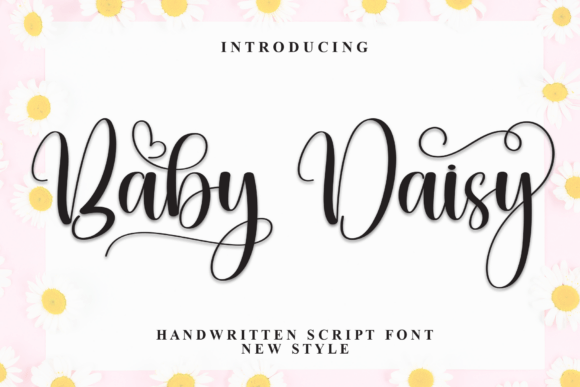
Who hasn’t experienced that moment of pure creative bliss when a font catches their eye, and they can envision a whole design unfolding before them? It’s a moment of pure magic, and for designers, it’s a treasure to behold. For me, that moment came when I stumbled upon the Baby Daisy Font. This charming handwritten font is a masterclass in elegance and whimsy, featuring delicate heart tails that add a playful touch to any design.
The Baby Daisy Font is perfect for adding a sweet touch to invitations, cards, and other creative projects. Its soft curves and heart details make it stand out, bringing joy to any design. As a designer, having access to this lovely font is invaluable, allowing you to create unique and eye-catching projects that showcase your personality and style.
Baby Daisy Font Key Features
- Unique Characteristics: Baby Daisy Font is a playful, cursive font with a whimsical feel, making it suitable for use in creative projects, such as children’s books, invitations, and signage.
- Script and Swashes: The font includes a range of script and swash styles, allowing users to add a personal touch to their designs and create unique, handwritten effects.
Designer Review: Baby Daisy Font
As a designer, I’ve had the chance to work with Baby Daisy Font, and I must say it’s a cute and charming addition to any project. ✨ The font’s playful, whimsical feel is perfect for children’s books, nursery decor, and even branding for family-friendly businesses.
One of the things I love about Baby Daisy Font is its versatility. ✨ It comes in a range of weights and styles, from light and delicate to bold and playful. This makes it easy to use across different contexts and mediums. ✨ The font also features a range of ligatures and swashes, which add an extra touch of personality to any design.
- ⚠️ Limited language support: Baby Daisy Font is primarily designed for English text, which may limit its use for projects that require multilingual support.
- ⚠️ Not suitable for formal or professional designs: While Baby Daisy Font is perfect for playful and creative projects, it may not be the best choice for formal or professional designs that require a more serious tone.
Overall, I think Baby Daisy Font is a great addition to any designer’s toolkit. It’s a fun, versatile font that’s perfect for projects that need a touch of whimsy. While it may have some limitations, I think the benefits far outweigh the drawbacks.
The Baby Daisy Font is ideal for:
- Baby and children’s products, such as nursery decor and kids’ clothing.
- Wedding invitations and stationery, particularly for a vintage or rustic theme.
- Food and beverage branding, particularly for desserts and sweet treats